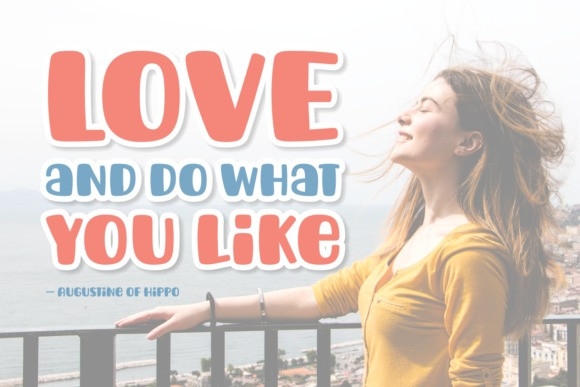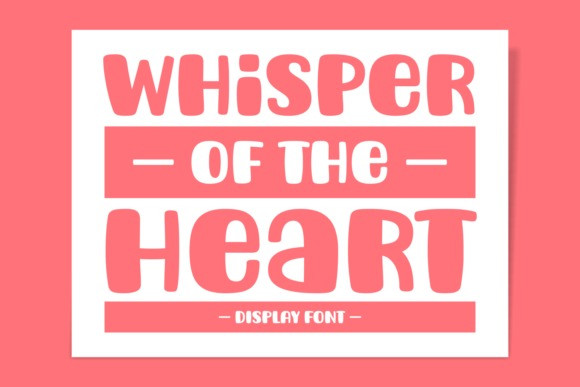
Whisper Of The Heart Font is a cute, playful and jolly display font. Add it to each of your party invitation, gathering or pretty much any design that requires a touch of youth and joy.